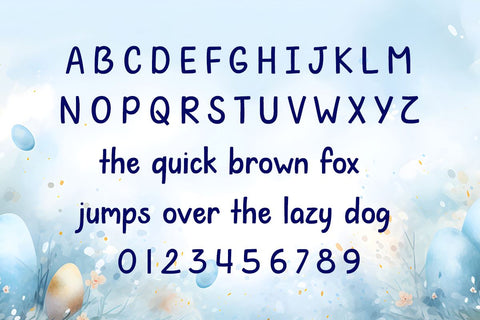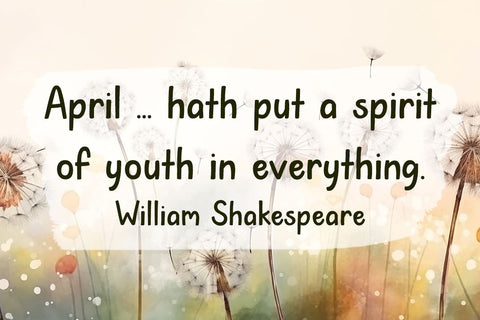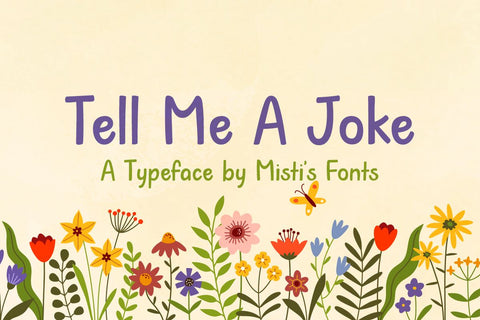
Tell Me a Joke
Introducing Tell Me A Joke font – a delightful and charming handwritten typeface that brings a touch of whimsy to your projects. This font is carefully crafted to be both cute and legible, making it perfect for various design purposes. With its playful strokes and friendly appearance, Tell Me A Joke adds a unique flair to any text it graces.